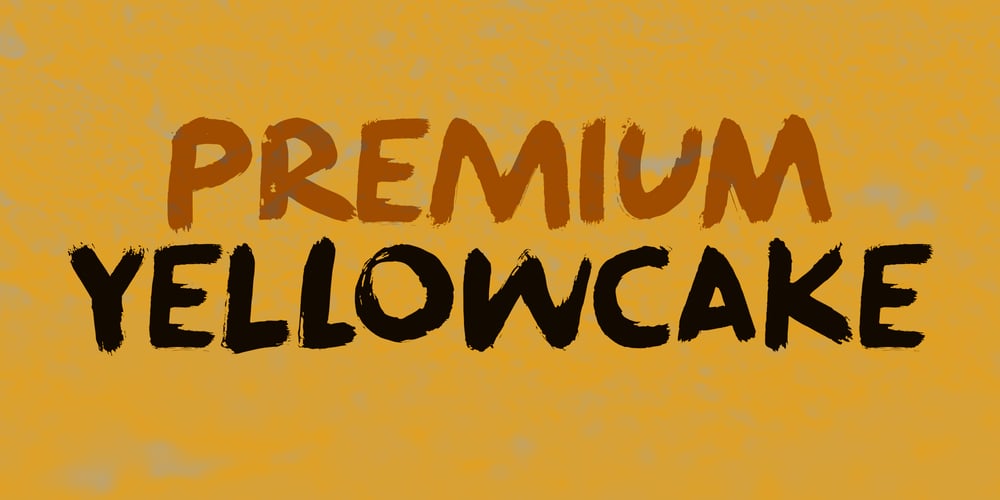
Premium Yellowcake Font Family was designed by David Kerkhoff and published by Hanoded. Premium Yellowcake contains 2 styles and family package options. Yellowcake is a type of uranium concentrate powder. It was named yellowcake, because of early extraction methods. Don’t worry, I am not building a nuclear reactor or something – I was watching a show where someone mentioned yellowcake and I immediately thought it would be a great font name!Premium Yellowcake is a font I made with a brush and Chinese ink. It is a bit rough, but it will look great on packaging and book covers, so have a ball.